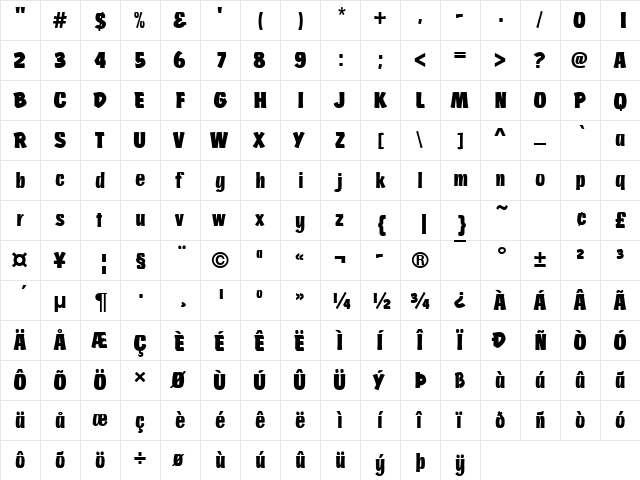
ChurchwardBruDReg Regular
Design Context for ChurchwardBruDReg Typeface
ChurchwardBruDReg takes a measured approach to typography — its balanced proportions and neutral character make it a reliable workhorse for both digital and print work.